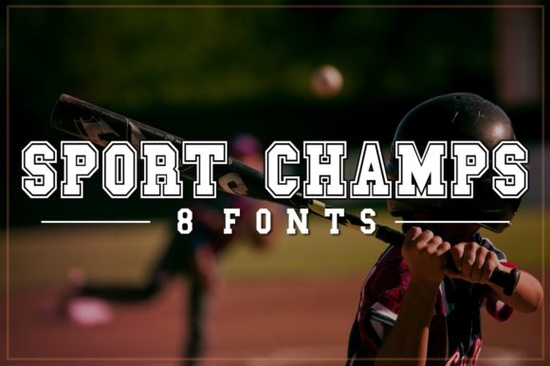
Creating designs for team events, athletic brands, or school spirit projects requires typography that captures energy and movement. The Sports Champs Font offers exactly that kind of dynamic feel. This decorative typeface is built specifically for creators who need bold lettering that stands out on merchandise and digital graphics. Instead of relying on standard bold weights, this pack provides themed variations that instantly communicate the sport you are highlighting.
Designers and crafters often struggle to find fonts that look authentic without appearing cluttered. This collection solves that problem by offering clean lines mixed with sport-specific details. Whether you are making a logo for a local league or a custom shirt for a family reunion, having the right alphabet set makes the workflow much smoother. It saves time on customization because the thematic elements are already built into the characters.
What variations are included in the pack?
This font family is incredibly playful and unique because it does not stop at just one style. The package includes 8 total variations. Six of these are dedicated to specific athletic activities, ensuring you have the right look for any team. The specific sports covered include:
- Baseball
- Football
- Soccer
- Basketball
- Golf
- Volleyball
Having these dedicated styles means you do not need to swap out different fonts for different teams. You can maintain consistency across a whole tournament brochure while still giving each team its own identity. The remaining two variations usually serve as standard bold or outline options that work well for general text within your sports-themed designs. This flexibility allows you to create hierarchy in your layouts without losing the thematic vibe.
Who benefits most from this typeface?
Print-on-demand sellers will find this tool particularly useful for niche markets. Sports merchandise is a huge category, and buyers often look for designs that feel official yet fun. You can use these letters to create names and numbers for custom jerseys or to design graphics for mugs and tote bags. Small business owners running local pro shops can also use this for in-house signage and promotional flyers.
Beyond commercial use, hobbyists and parents often need these resources for personal projects. Think about birthday invitations for a child who loves soccer or decals for a minivan carrying gear to weekend games. The decorative nature of the font adds a festive touch that standard sans-serif fonts cannot match. It helps turn a simple text layout into a celebration of the game.
How do you pair bold sports letters with other styles?
When working with highly decorative display fonts, contrast is key. You cannot use this style for long paragraphs of text because it can become hard to read at small sizes. Instead, use it for headlines and pair it with a simpler script or serif for details. If you need something softer to balance the bold athletic lines, you might explore options like the Viktoria Monogram Font.
Combining a strong sports header with an elegant monogram can create a sophisticated look for awards or commemorative items. For example, a volleyball tournament trophy plaque could use the sports font for the event title and a script font for the recipient's name. This mix ensures the design feels professional rather than cartoonish. Always test your combinations at the final output size to ensure legibility remains high.
Accessibility and file formats are crucial for smooth workflow integration. Most modern design software supports standard font files, but having the complete family ensures you have all the weights and styles ready to go. You can view the complete full variation pack to see every character map and style option available. This helps you decide if the specific glyphs you need are included before you start your project.
Quick Checklist for Sports Design Projects
Before you finalize your next athletic design, run through these simple steps to ensure quality:
- Check Legibility: View your text at 100% zoom to ensure numbers and letters are clear.
- Test Contrast: Make sure the font color stands out against the shirt or background material.
- Match the Sport: Double-check that the font variation matches the actual sport being played.
Following these steps helps prevent common printing errors and ensures your final product looks as good as your screen preview. With the right tools and a bit of planning, your sports-themed projects will look professional and engaging.